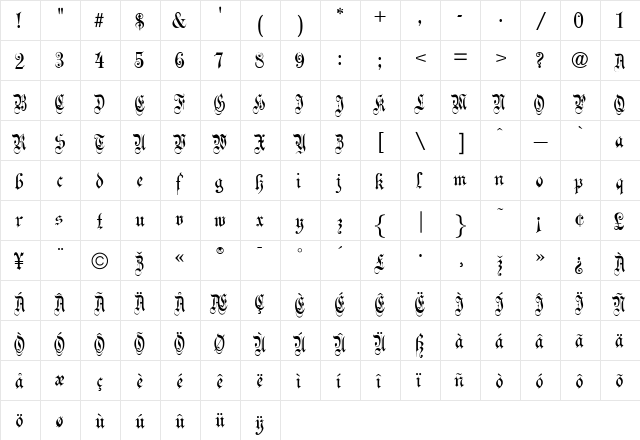
CelebrationTextPlain Regular
Design Context for CelebrationTextPlain Typeface
CelebrationTextPlain is a composed and adaptable typeface that performs quietly and consistently across a wide range of design contexts.